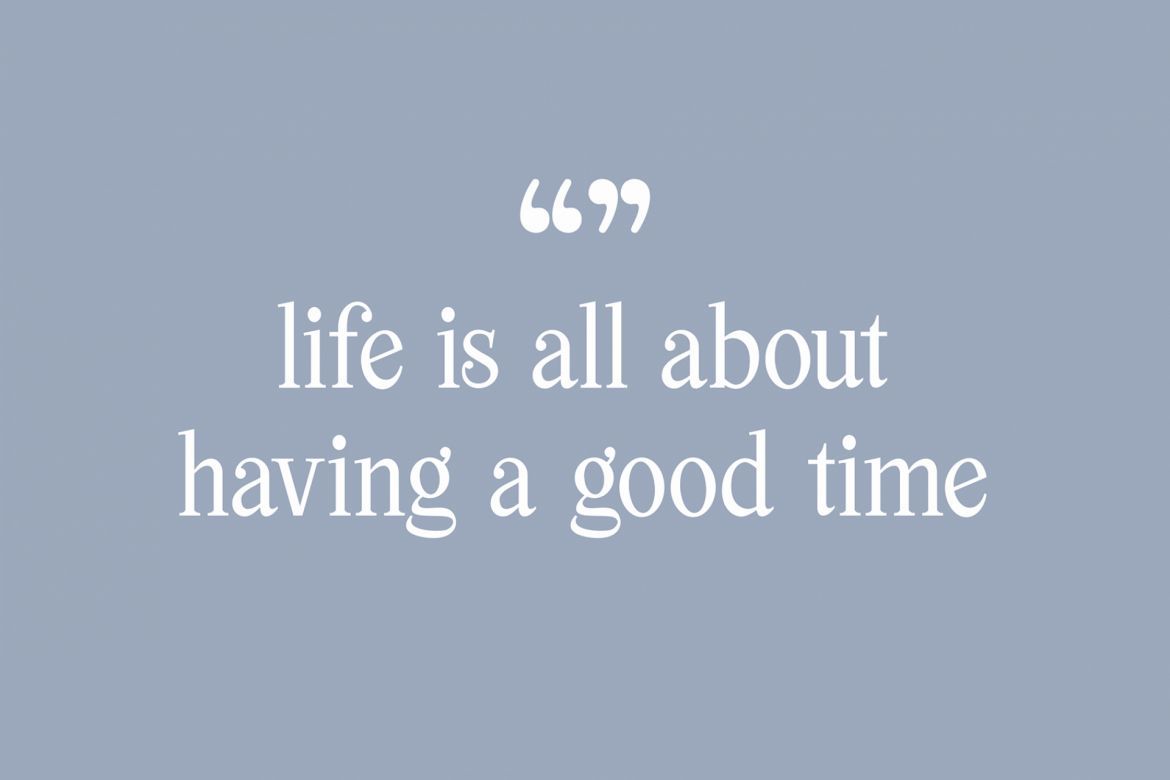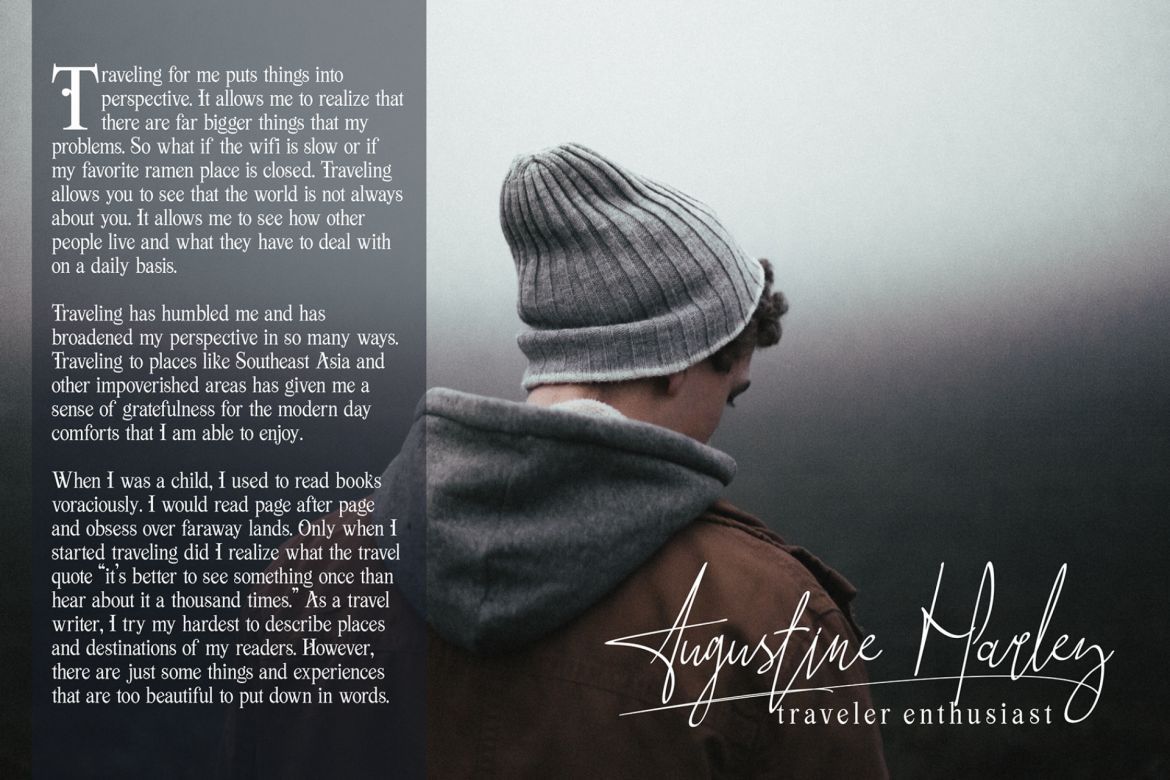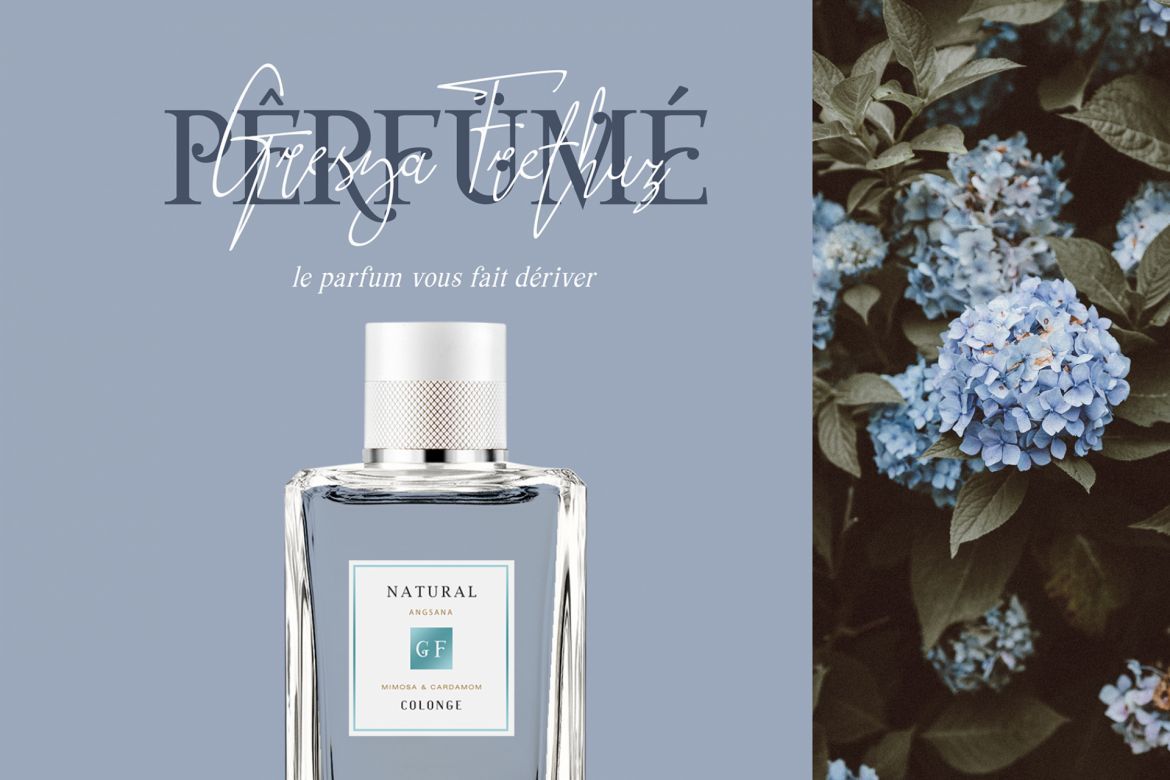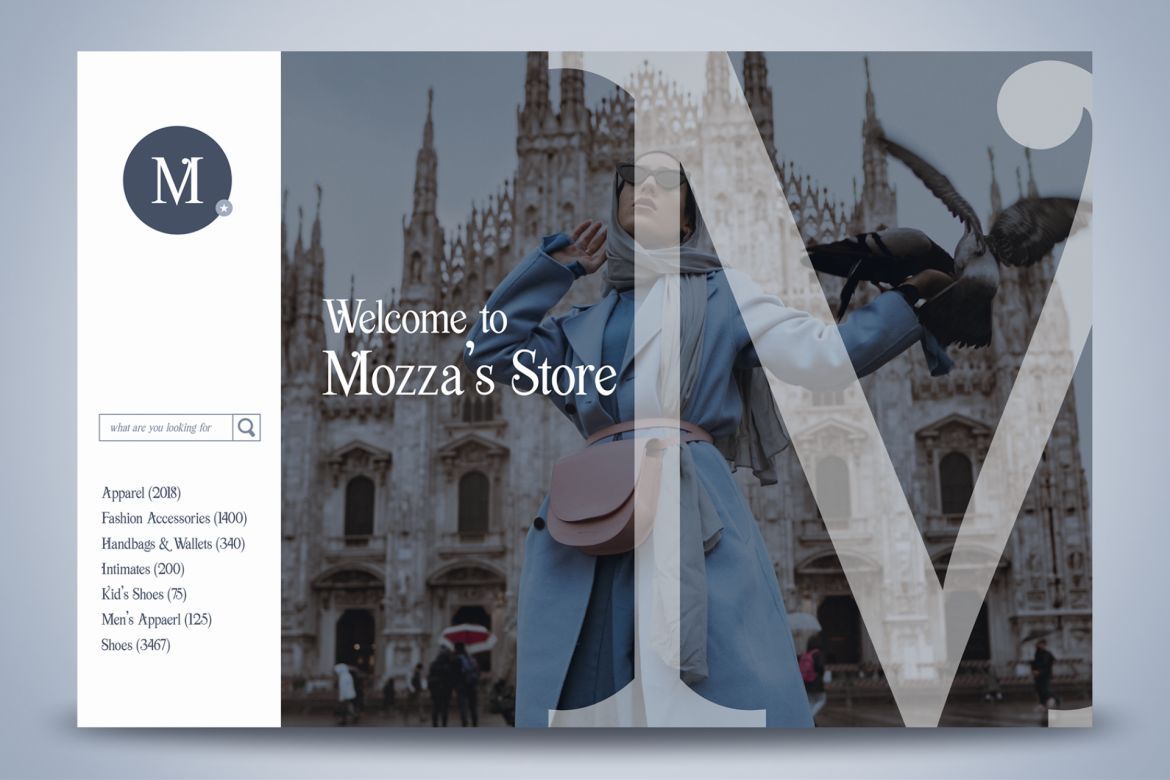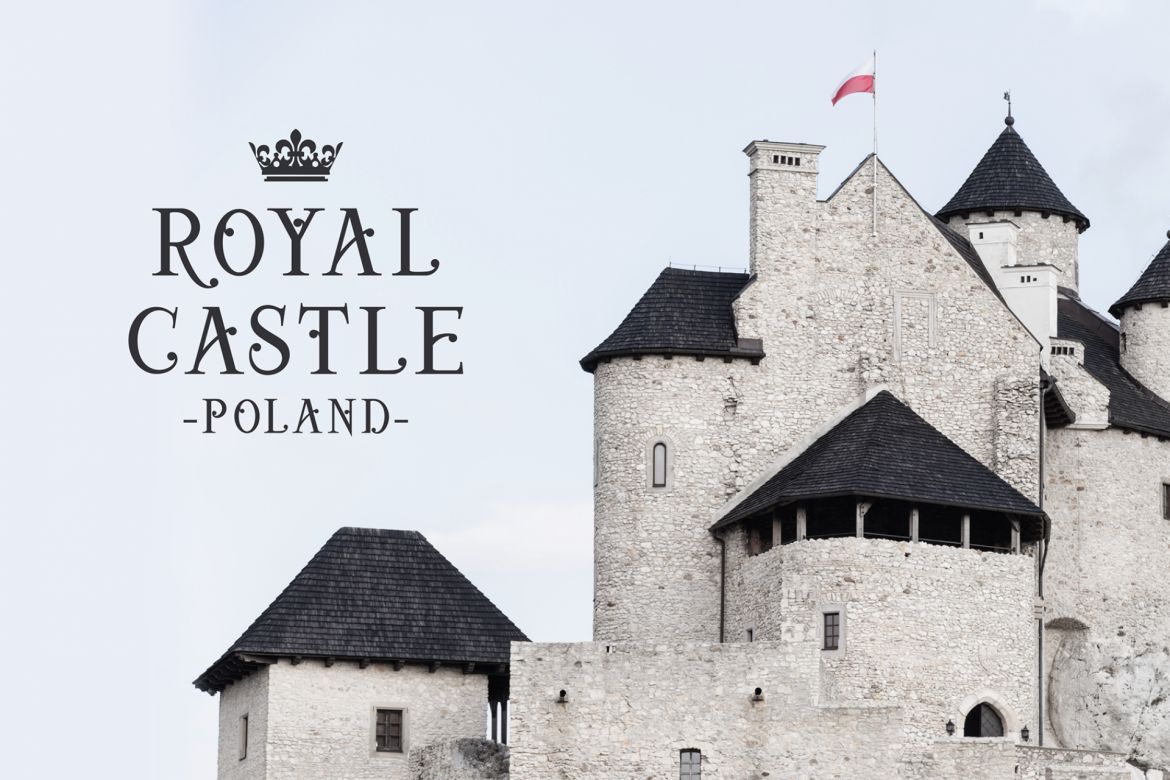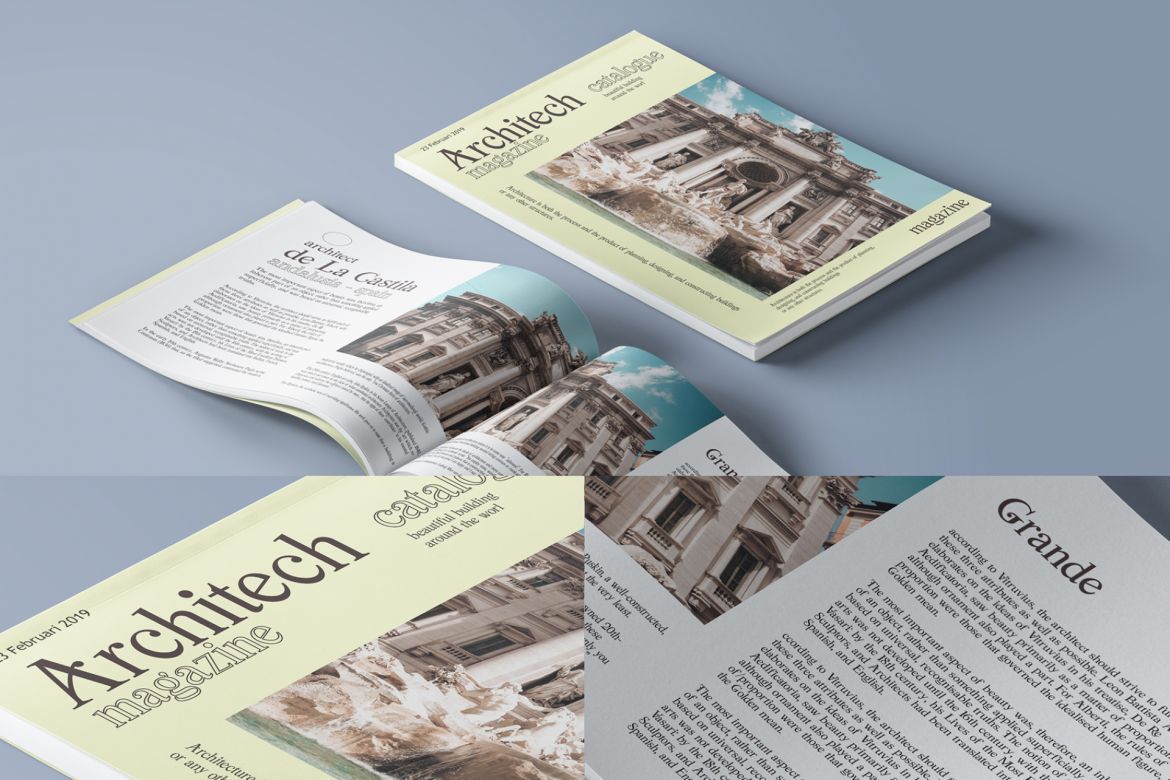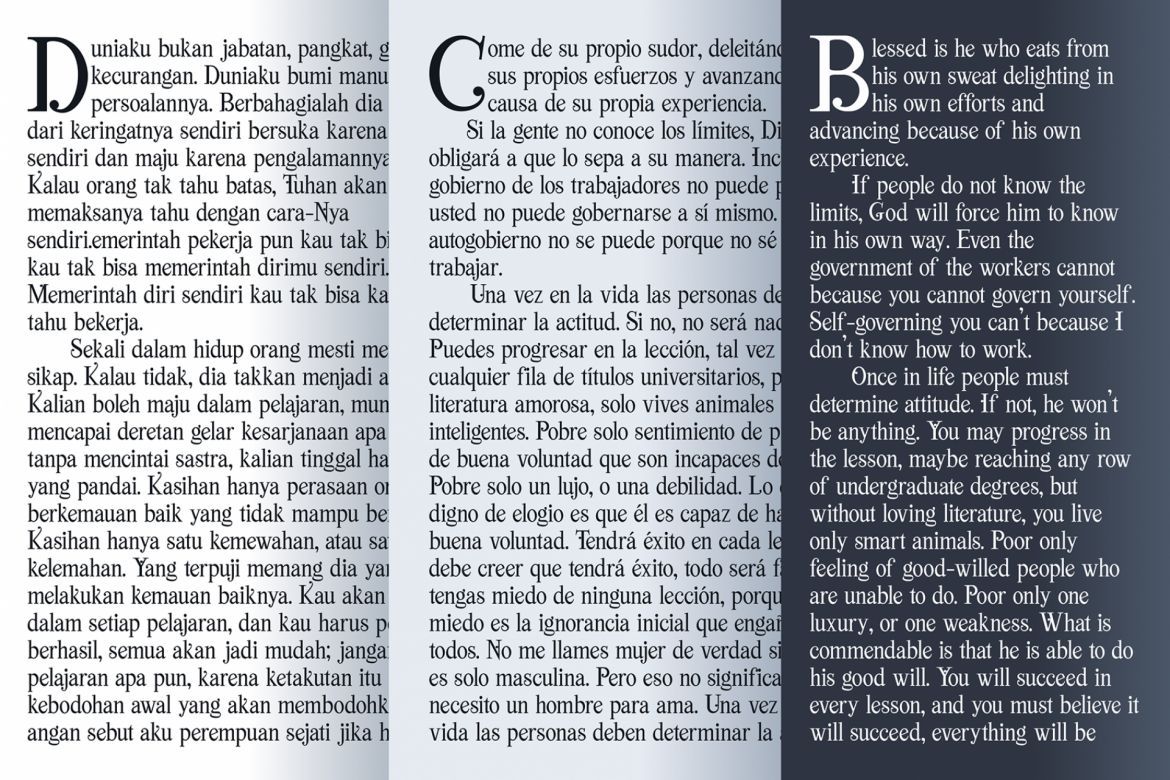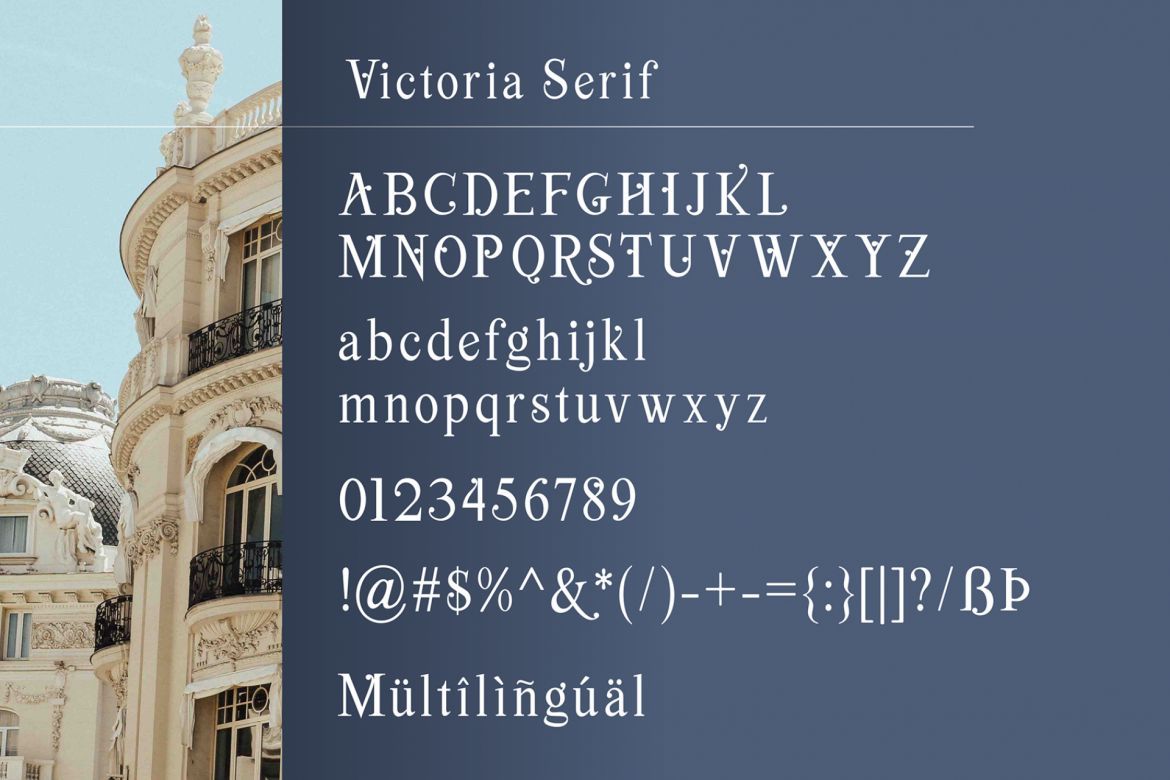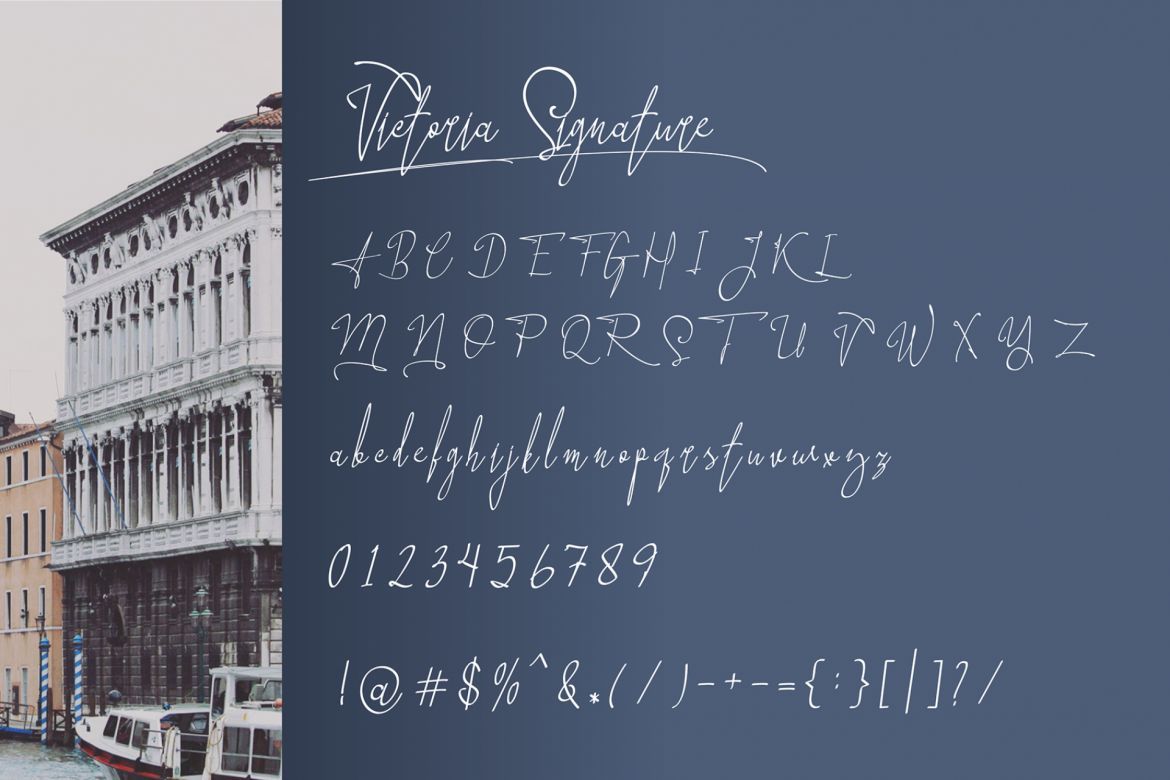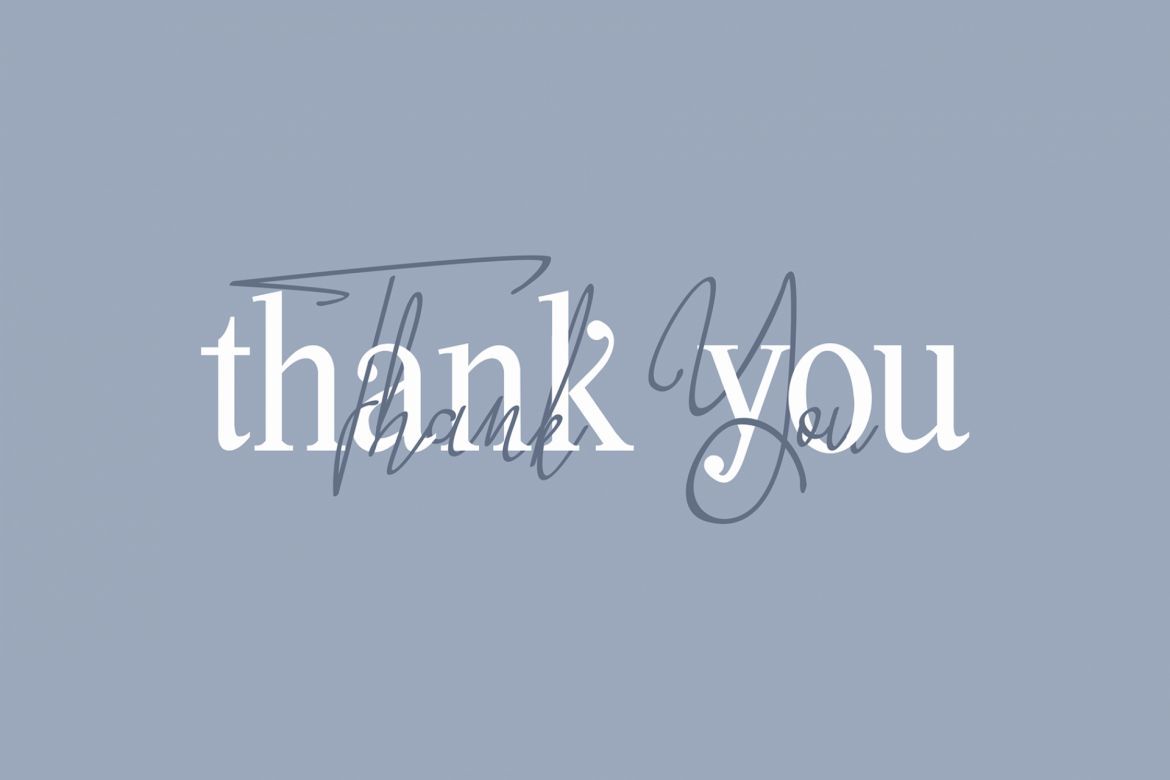
Viktoria Font Duo
Viktoria is a beautiful classic font duo that makes for gorgeous quotes, logos, posters, website, wedding invitations, book, social media, and more!
Use Viktoria Serif and Viktoria Signature together to get an amazing look, and don't forget to add swash, then your project will be even more special.